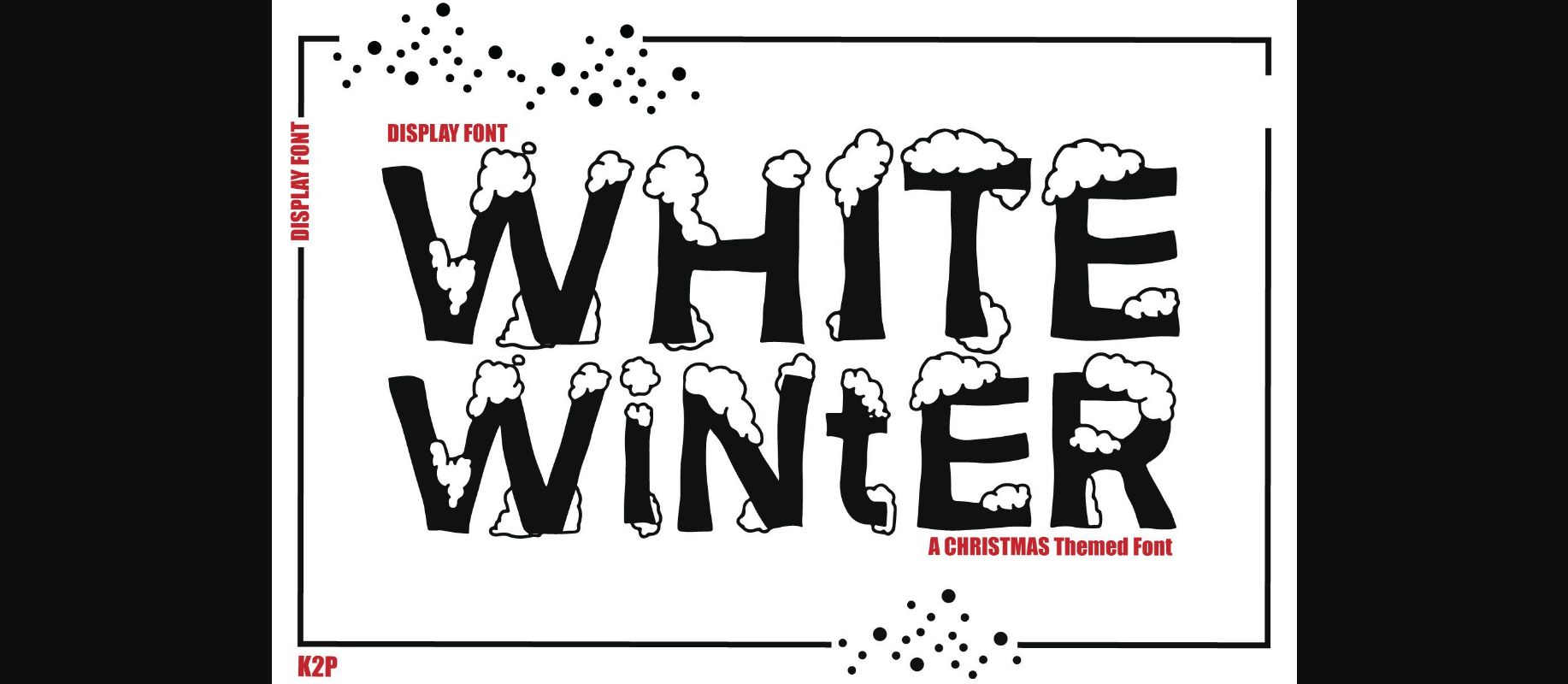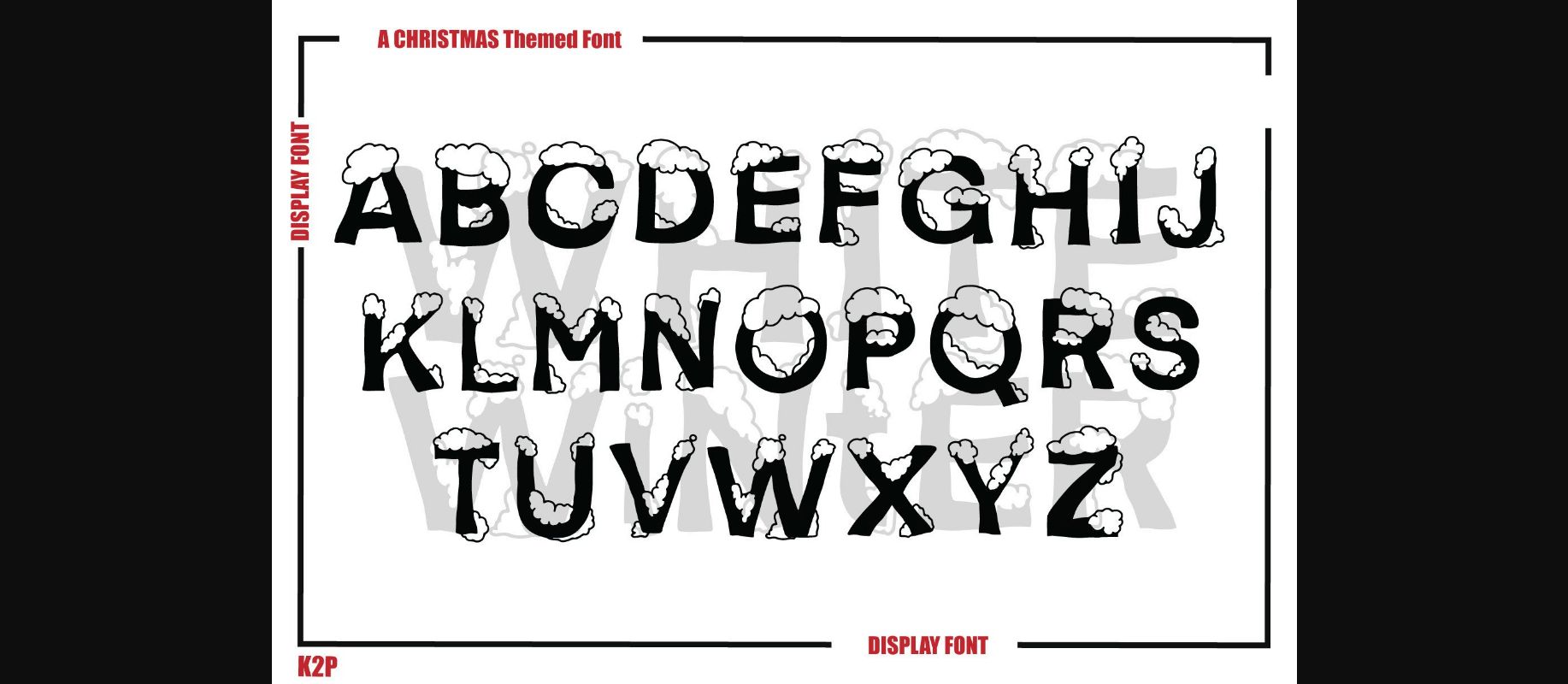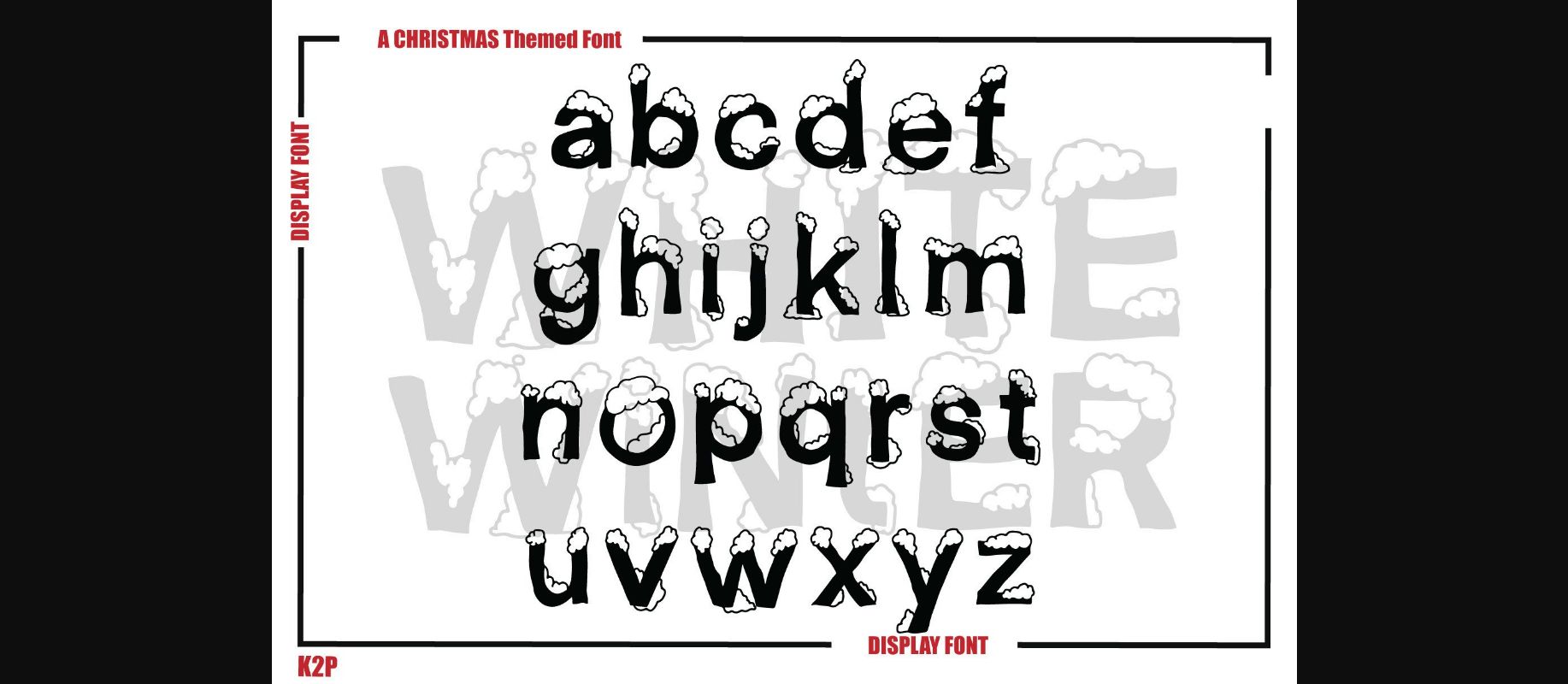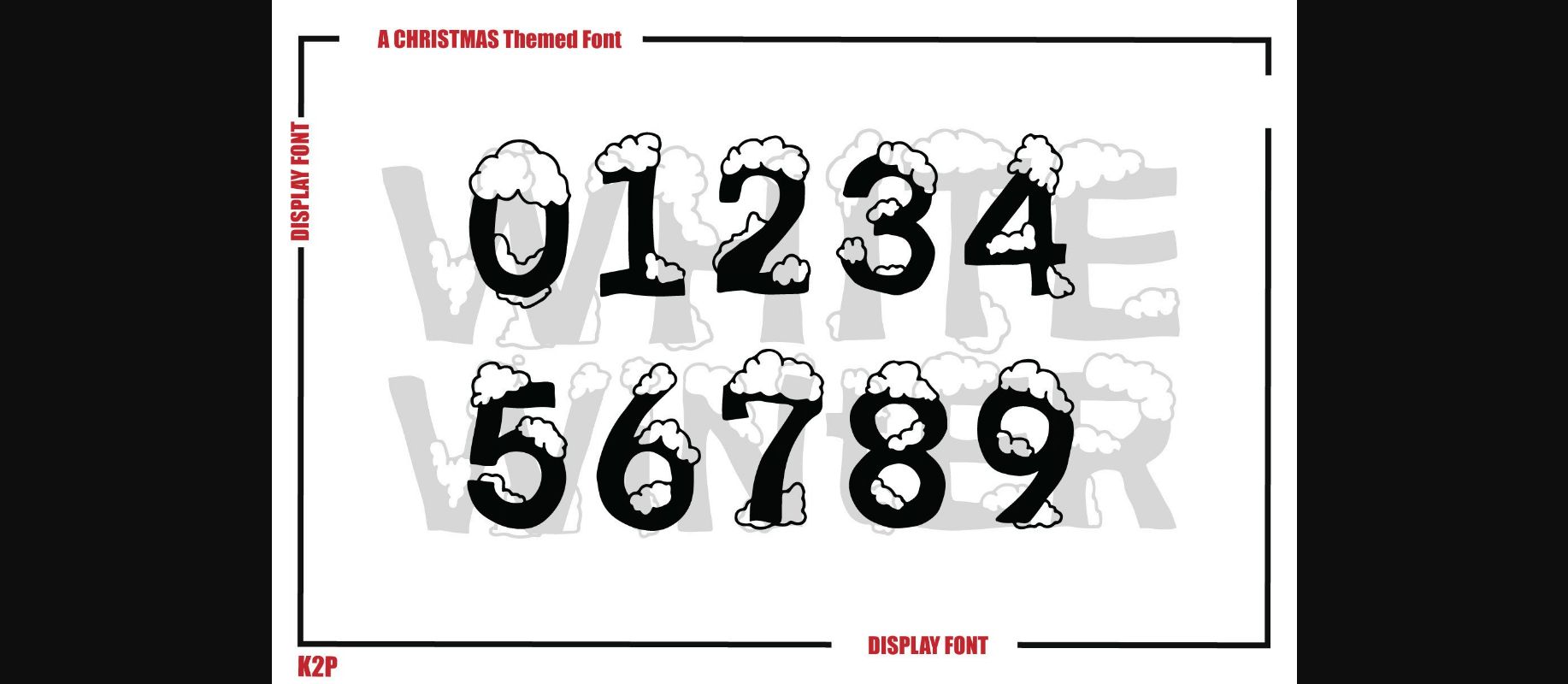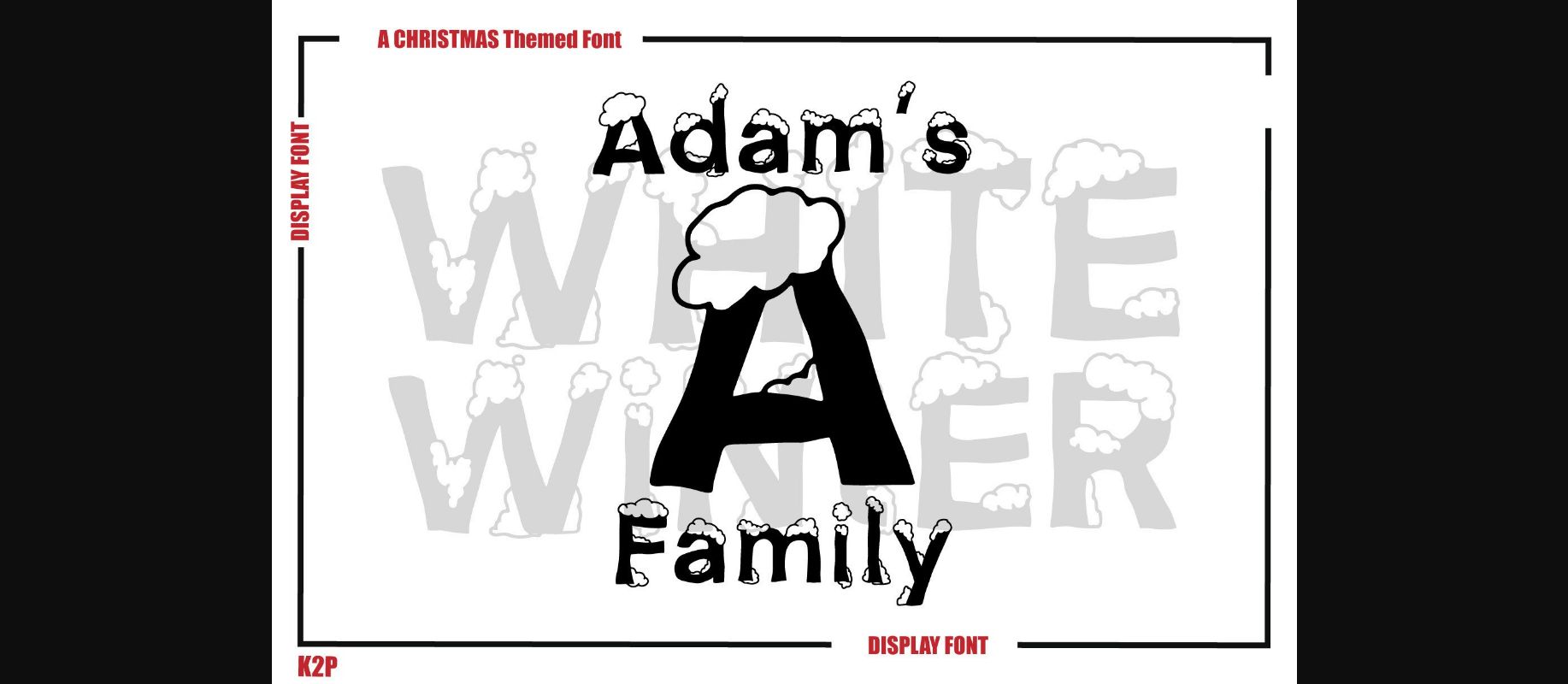
HomeDecorative FontsWhite Winter Font Decorative Fonts White Winter Font FacebookXPinterestWhatsApp 1 of 8 ... White Winter Font Poster 2... White Winter Font Poster 3... White Winter Font Poster 4... White Winter Font Poster 5... White Winter Font Poster 6... White Winter Font Poster 7... White Winter Font Poster 8... About White Winter Font White Winter is a fun and incredibly unique decorative font. It can be used for various design ideas, particularly those related to the Christmas Holiday. DOWNLOAD NOW People also explored Home Alone Font Emoji Font Asparagus Font People Font Might North Font Quillbacks Font Partner Font Gradioo Font Machina Font 260 0 TagsWhite Winter Font Previous articleIlluminate FontNext articleDenim Font LEAVE A REPLY Cancel reply Comment: Please enter your comment! Name:* Please enter your name here Email:* You have entered an incorrect email address! Please enter your email address here Website: Save my name, email, and website in this browser for the next time I comment. Personal Use Free Heartburn Personal Use Free Read more about this font Abingdon Personal Use Free Read more about this font Shkoder 1989 Personal Use Free Read more about this font Zojihun Personal Use Free Read more about this font BLOG 5 Fonts That Will Dominate Design Trends in 2026 5 Fonts for 2026 That Will Dominate Design Trends Typography plays a critical role in visual communication, and as we look ahead to 2026, it’s... Modern Sans-Serif Fonts That Brands Love in 2025 How to Cut Any Font on Cricut: Convert a Font to SVG (Free) Top 10 Handwritten Fonts That Elevate Your Designs